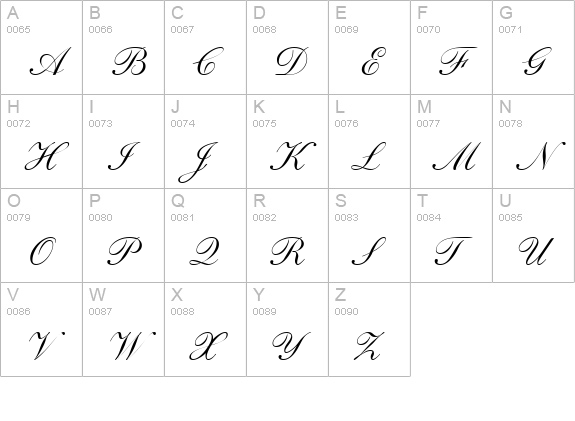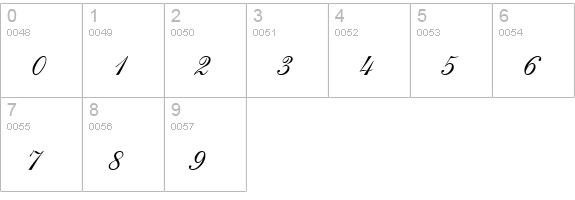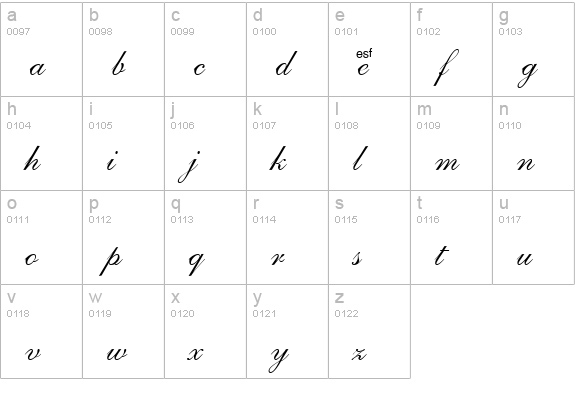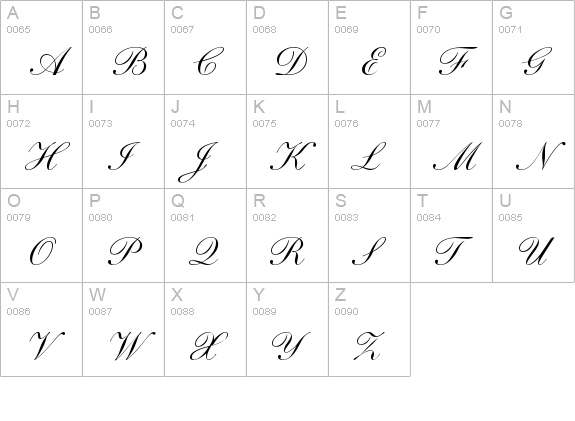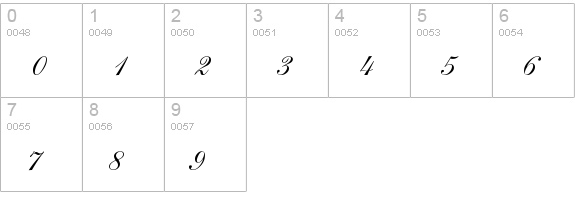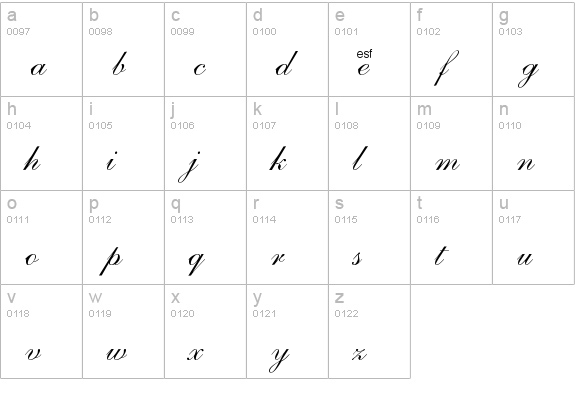
Saffron Font Details
Saffron font is a remarkable typeface that effortlessly combines elegance and versatility. This captivating font is perfect for those seeking a touch of sophistication in their designs. With its delicate curves and graceful letterforms, Saffron adds a timeless charm to any project, whether it's a logo, branding materials, or a stunning headline. What sets Saffron font apart is not only its aesthetic appeal but also its accessibility. It is available for free download at FontsMarket.com, making it easily accessible to designers, creatives, and typographers alike. This generous offering allows anyone to elevate their designs with the beauty and refinement that Saffron font exudes. With a wide range of weights and styles, Saffron font offers endless possibilities for creative expression. From the bold and impactful to the subtle and understated, this font can adapt to any design concept effortlessly. Whether you're designing for print or digital media, Saffron font will leave a lasting impression on your audience. The meticulous attention to detail in Saffron font is evident in its legibility and readability, making it a reliable choice for both headlines and body text. Its clean lines and balanced proportions ensure that every word is easily decipherable, even at small sizes or when used in intricate compositions. In a world where premium fonts often come with a hefty price tag, Saffron font stands out as a rare gem that is freely available to all. Its accessibility empowers designers to bring their visions to life without compromising on quality or breaking the bank. In conclusion, Saffron font is a captivating typeface that effortlessly blends elegance and versatility. Its timeless charm, combined with its accessibility, makes it a must-have for any designer. Download Saffron font for free at FontsMarket.com and unleash your creativity with this exquisite typographic masterpiece.